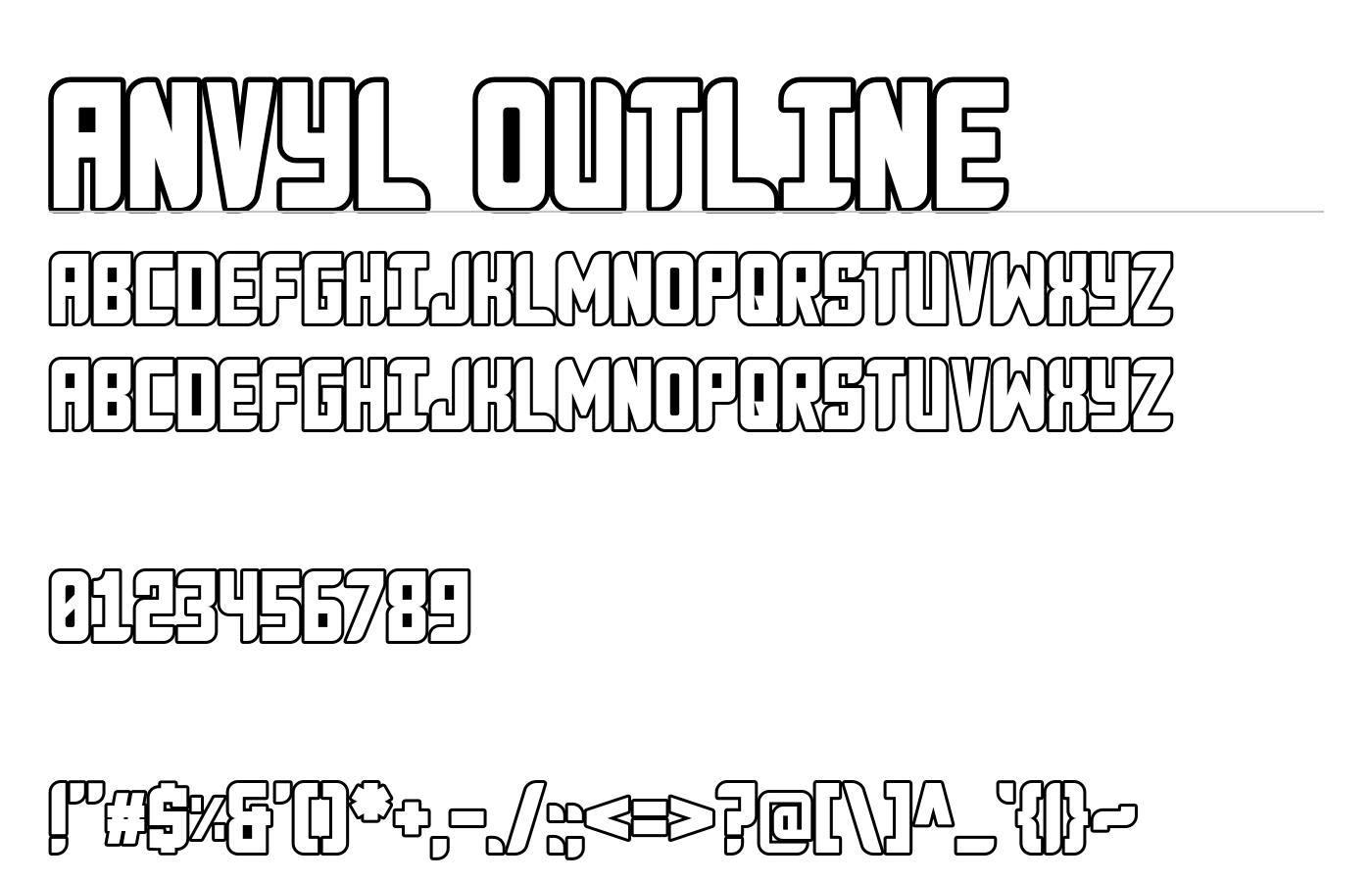
Anvyl Outline is a bold, geometric sans-serif font with a strong, industrial vibe created by its thick, blocky letterforms and clean outlines. Its squared shapes and even stroke weight give it a modern yet retro feel, making it ideal for eye-catching headlines, logos, and display uses where a powerful, structured look is desired. This font works especially well in branding and posters that need a bold statement with a touch of vintage mechanical style.
Anvyl Font
About Anvyl Font
| Font family | Anvyl Font |
| Designer | MattColeWilson & Co. |